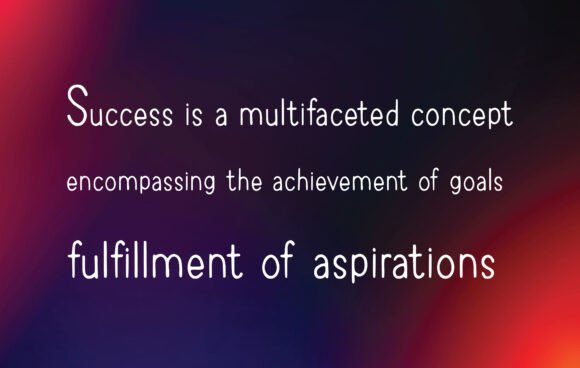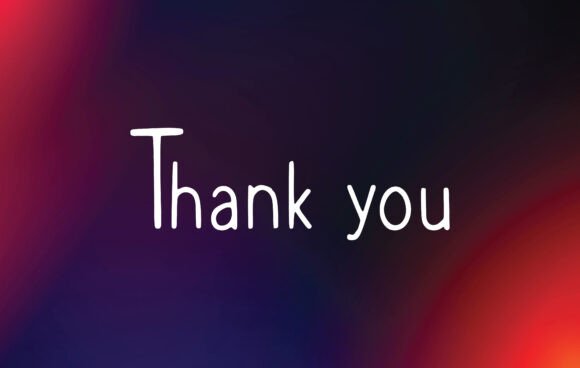
Alejandro Font: Elevate Your Creative Projects with Elegance
In the world of typography, a font can make all the difference in bringing your creative ideas to life. If you’re a designer, crafter, or simply someone who appreciates beautiful handwritten fonts, then Alejandro Font is a gem you won’t want to miss. This lovely and beautiful handwritten font has the potential to take your projects to the highest level, making it an excellent choice for creating eye-catching logos, branding, and quotes.
The Beauty of Alejandro Font
Alejandro Font boasts a unique, elegant, and fluid script style that exudes sophistication and charm. Its handwritten nature gives it a personal touch, making it perfect for projects that require a human and approachable feel. The font’s beautiful letterforms, with their subtle variations in line width and height, create a visually appealing rhythm that draws the reader in. Whether you’re working on a logo, a quote, or a branding project, Alejandro Font is sure to add a touch of elegance and refinement.
Why Choose Alejandro Font?
So, what makes Alejandro Font stand out from the crowd? Here are just a few reasons why designers and crafters love this font:
- Versatility: Alejandro Font is incredibly versatile, making it suitable for a wide range of projects, from logos and branding to quotes, posters, and more.
- Elegance: The font’s elegant script style adds a touch of sophistication to any project, making it perfect for high-end brands, luxury products, and creative endeavors.
- Readability: Despite its elegant nature, Alejandro Font remains highly readable, even at smaller sizes, making it ideal for body text and longer quotes.
- Uniqueness: Alejandro Font’s unique letterforms and subtle variations ensure that your project will stand out from the crowd, avoiding the generic feel that comes with more traditional fonts.
Using Alejandro Font in Your Projects
So, how can you use Alejandro Font to elevate your creative projects? Here are a few ideas to get you started:
- Logos and Branding: Use Alejandro Font to create a stunning logo or brand identity that exudes elegance and sophistication.
- Quotes and Posters: Add a touch of refinement to your quotes and posters with Alejandro Font, making them perfect for social media, blogs, or print materials.
- Packaging and Product Design: Use Alejandro Font to add a personal touch to your product packaging, making it stand out on store shelves.
- Web Design: Incorporate Alejandro Font into your web design projects, such as headings, titles, or even body text, to create a unique and engaging user experience.
Tips for Working with Alejandro Font
To get the most out of Alejandro Font, here are a few tips to keep in mind:
- Experiment with Colors: Alejandro Font looks stunning in a variety of colors, so don’t be afraid to experiment and find the perfect hue to match your brand or project’s aesthetic.
- Play with Sizes: The font’s elegance shines through at larger sizes, but it remains readable even at smaller sizes, making it perfect for a range of applications.
- Pair it with Other Fonts: Alejandro Font pairs beautifully with other fonts, so consider combining it with a sans-serif or serif font to create visual interest and hierarchy.
Alejandro Font is a beautiful and elegant handwritten font that has the potential to elevate your creative projects to new heights. Its versatility, readability, and unique letterforms make it an excellent choice for designers, crafters, and anyone looking to add a touch of sophistication to their work. Whether you’re creating logos, branding, quotes, or more, Alejandro Font is sure to become a go-to font in your collection.